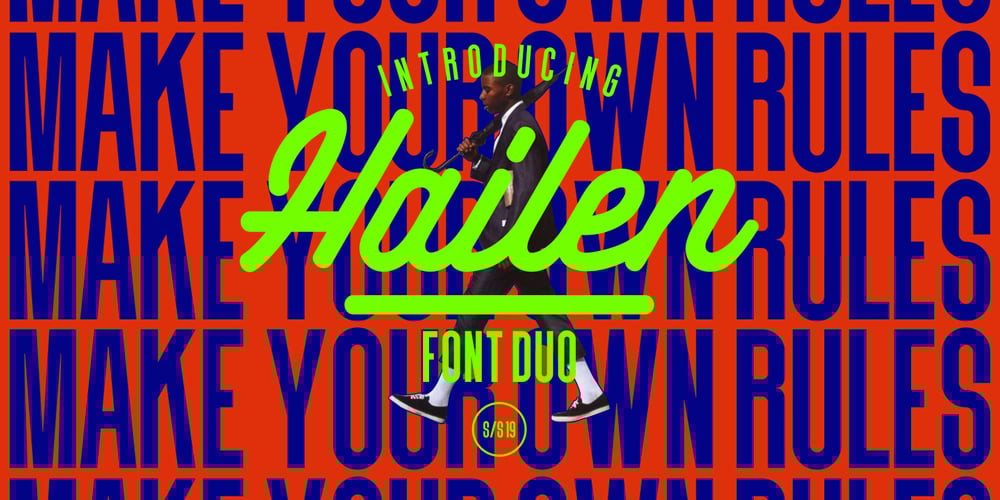
Hailen Font Duo Font Family was designed by Wisnu Cipto Wibowo and published by Fateh.Lab. Hailen Font Duo contains 3 styles and family package options. Hailen is a font that is very suitable to be combined with current fashion themes and a number of illustrations to give them a more beautiful look. These two beautiful fonts will be perfect to combine in your design and are suitable for t-shirts, prints, magazine or book cover, business cards, material branding, poster quotes, Clothing, wedding invitations, blog posts, social media, digital letters, and many more!